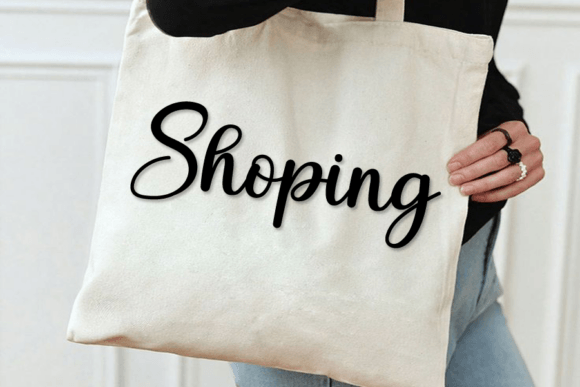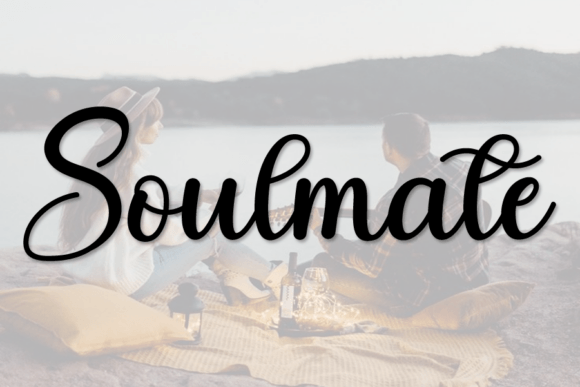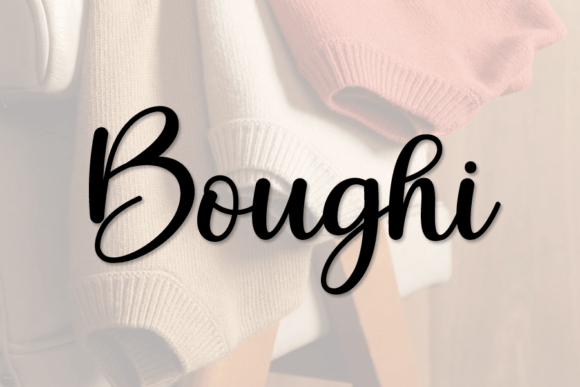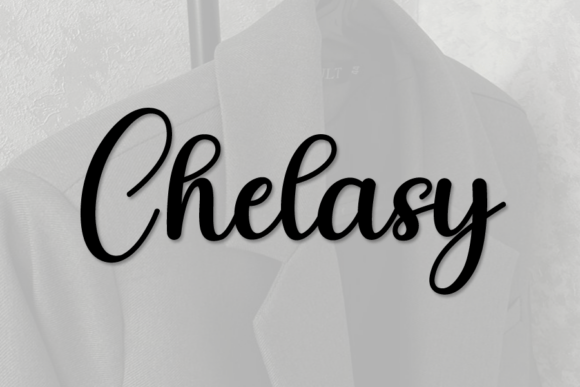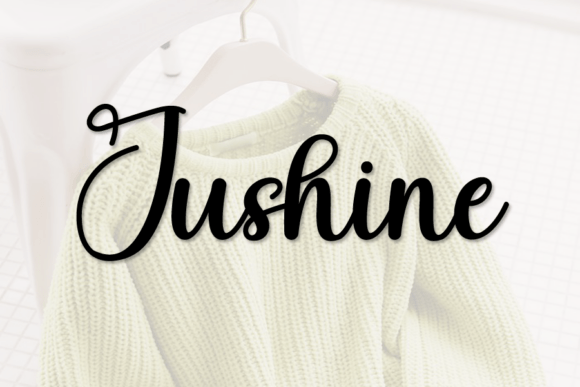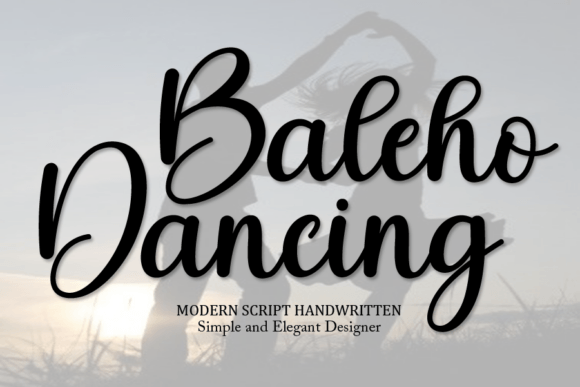
Baleho Dancing Font: Elevate Your Designs with a Classic Handwritten Script
Are you tired of using generic fonts that lack personality in your designs? Look no further than the Baleho Dancing Font, a classic and simple handwritten script that adds a touch of elegance and whimsy to any project. In this article, we’ll dive into the world of Baleho Dancing Font, exploring its features, uses, and benefits for designers and crafters alike.
What is Baleho Dancing Font?
Baleho Dancing Font is a beautiful, handwritten script created in a random and free style. Its classic and simple design makes it versatile and suitable for a wide range of applications, from logotypes and headlines to corporate identities, brand identities, and more.
Key Features of Baleho Dancing Font
- Classic and Simple Design: Baleho Dancing Font boasts a timeless, elegant design that works well in various contexts.
- Handwritten Script: The font’s handwritten nature adds a personal touch to your designs, making them more relatable and engaging.
- Random and Free Style: The font’s unique, free-style approach ensures that each letter and word looks distinct and visually appealing.
- Versatile: Baleho Dancing Font is suitable for a wide range of applications, including logotype, headline font, corporate identity, brand identity, apparel industry, poster, music, movie, game, magazine, book, comic, cartoon, YouTube, Instagram, website, and more.
Uses of Baleho Dancing Font
Baleho Dancing Font is an incredibly versatile font that can be used in various design projects, including:
- Logotype and Branding: Create a lasting impression with a unique and memorable logotype that reflects your brand’s personality.
- Headlines and Titles: Add a touch of elegance and sophistication to your headlines and titles, making them stand out in any context.
- Corporate Identity: Establish a strong brand identity with Baleho Dancing Font, perfect for business cards, letterheads, and other corporate materials.
- Apparel Industry: Create stunning apparel designs, from t-shirts to hoodies, with a font that adds a personal touch to your products.
- Poster and Print Design: Make a statement with eye-catching posters, flyers, and brochures that showcase your creativity.
- Digital Media: Use Baleho Dancing Font in your YouTube videos, Instagram posts, and website designs to add a touch of personality and whimsy.
Benefits of Using Baleho Dancing Font
So, why choose Baleho Dancing Font for your design projects? Here are just a few benefits:
- Unique and Memorable: Baleho Dancing Font helps you stand out from the crowd with its distinctive, handwritten design.
- Easy to Read: Despite its elegant nature, Baleho Dancing Font remains highly legible, making it perfect for body text and headlines.
- Flexible: Use Baleho Dancing Font in various contexts, from digital media to print materials, without compromising on style or legibility.
- Time-Saving: With Baleho Dancing Font, you can create stunning designs quickly and efficiently, saving you time and effort.
Tips for Using Baleho Dancing Font
To get the most out of Baleho Dancing Font, keep the following tips in mind:
- Experiment with Colors: Play with different colors and textures to add depth and visual interest to your designs.
- Mix and Match Fonts: Combine Baleho Dancing Font with other fonts to create a unique and visually appealing typography.
- Pay Attention to Spacing: Ensure that your text is properly spaced to maintain readability and aesthetic appeal.
- Be Creative: Don’t be afraid to try new things and push the boundaries of what’s possible with Baleho Dancing Font.
| Author | Abadi letter |
Baleho Dancing Font is a versatile and elegant handwritten script that can elevate your designs to the next level. With its classic and simple design, random and free style, and wide range of applications, this font is perfect for designers and crafters looking to add a touch of personality and whimsy to their projects. Whether you’re working on a logotype, headline font, or digital media, Baleho Dancing Font is sure to impress. So why wait? Download Baleho Dancing Font today and start creating stunning designs that showcase your creativity!